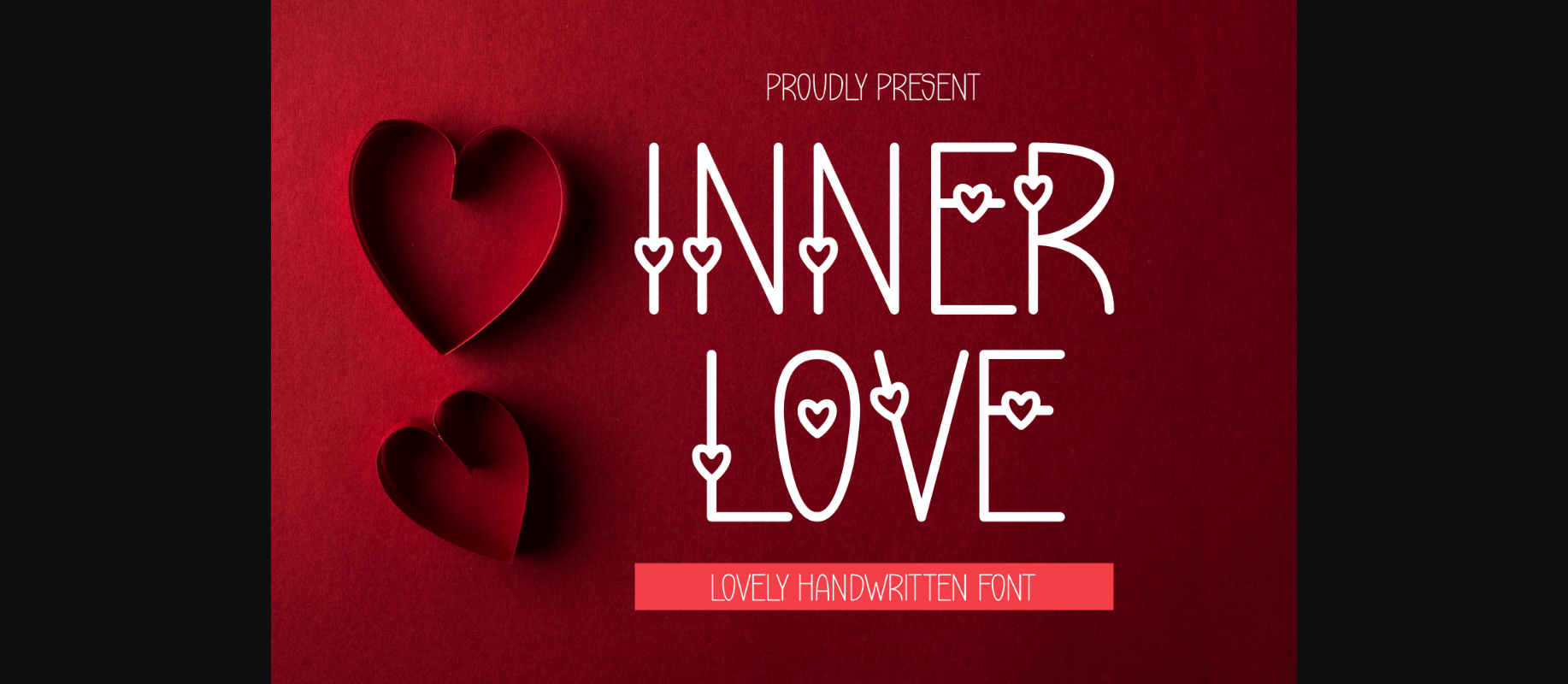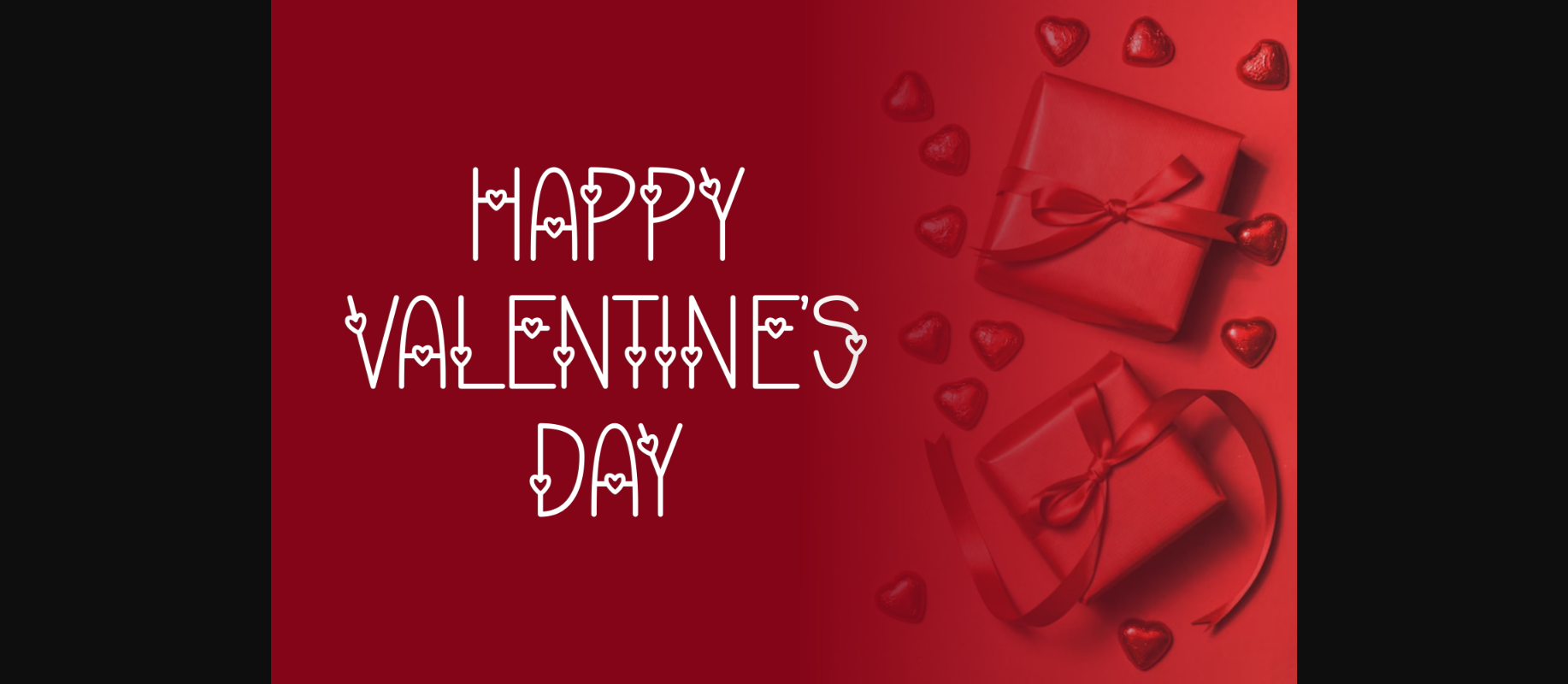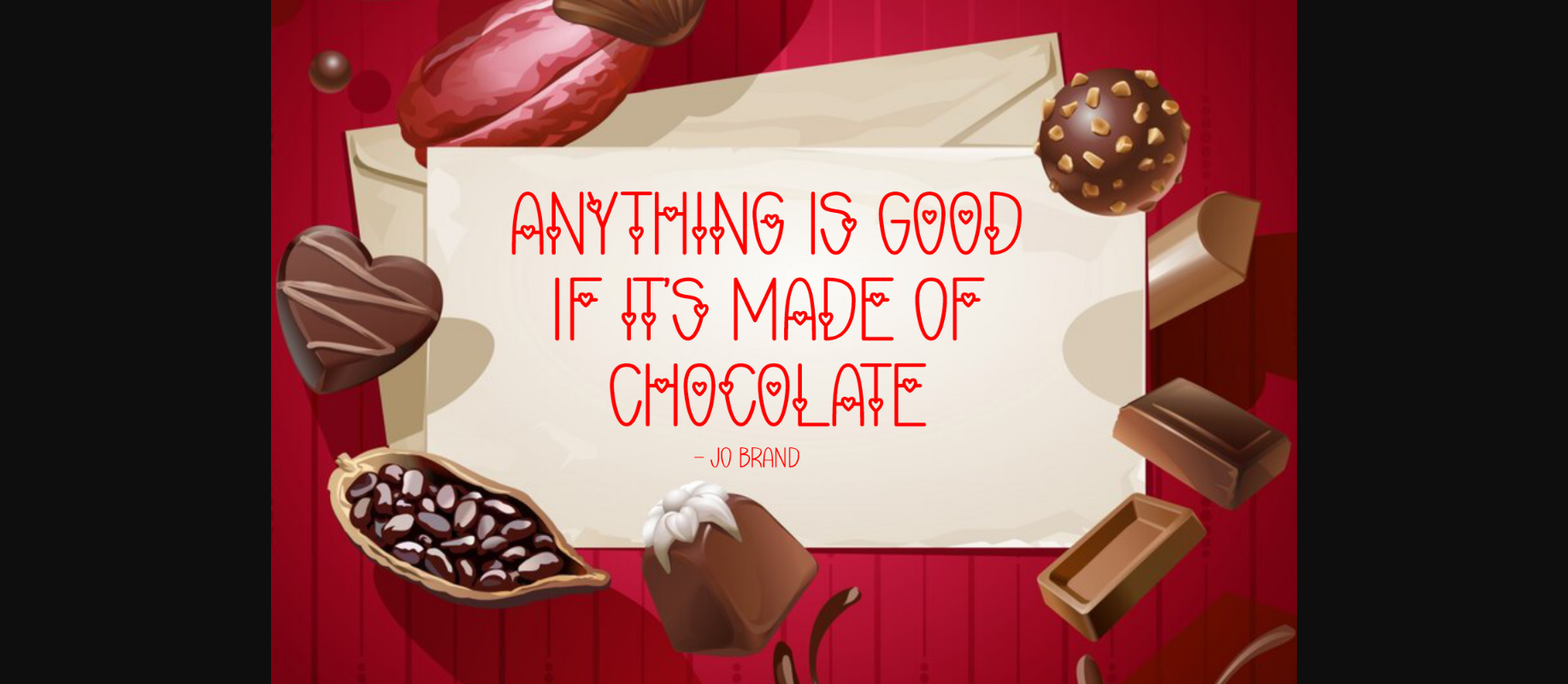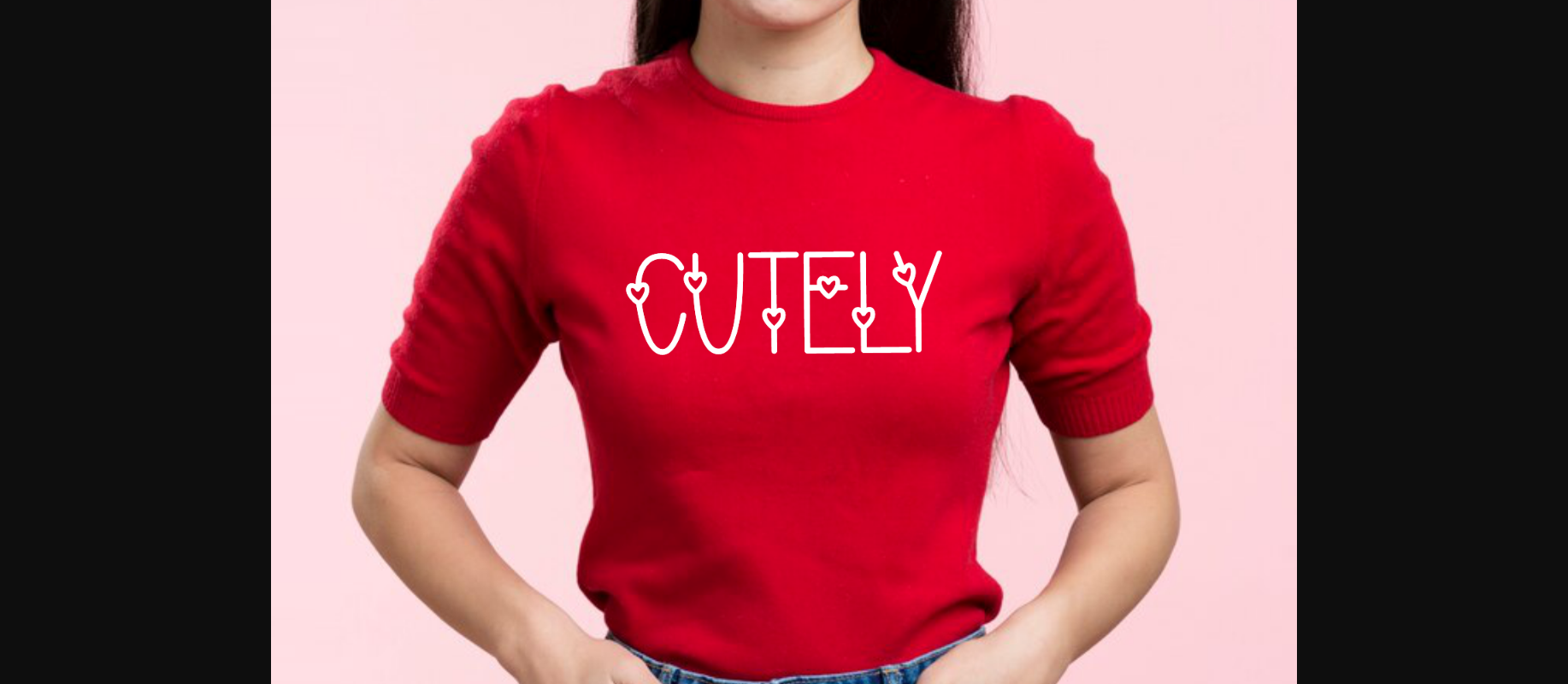
About Inner Love Font
Inner Love is a sweet handwritten font that adds a heartfelt touch to your creations. What sets it apart are the tiny hearts sprinkled throughout the letters, giving your text a warm and affectionate feel. Ideal for expressing love and tenderness in your designs, Inner Love brings a playful and romantic vibe to any project. Perfect for greeting cards, love notes, or anything that calls for a touch of sweet simplicity, Inner Love is the font that speaks straight to the heart.